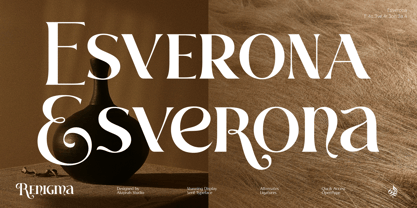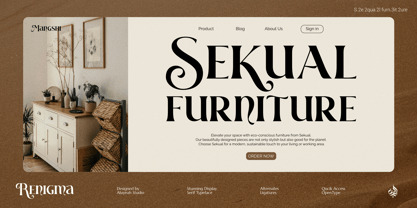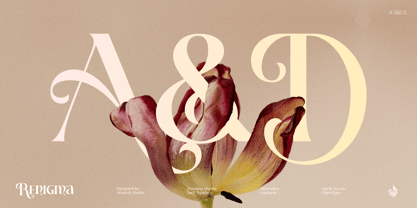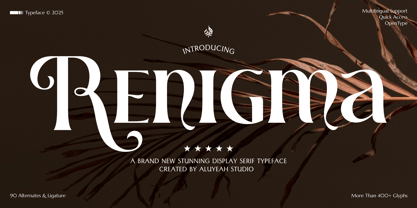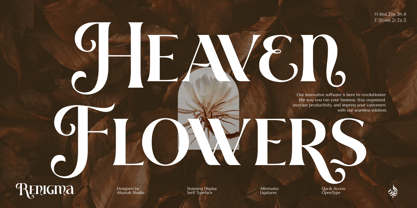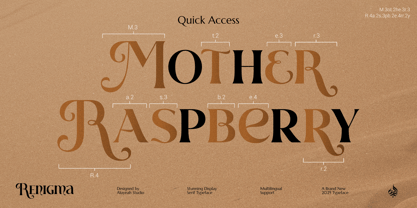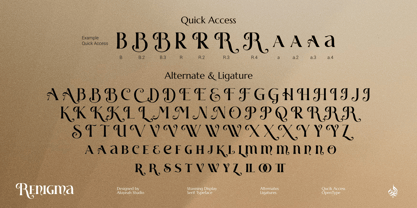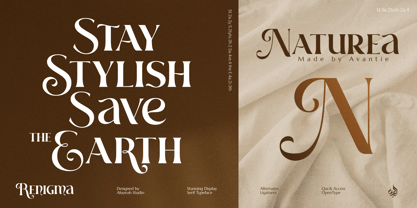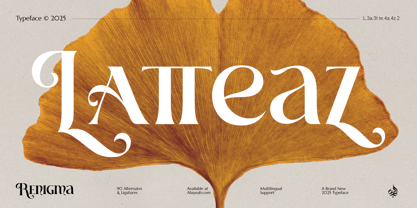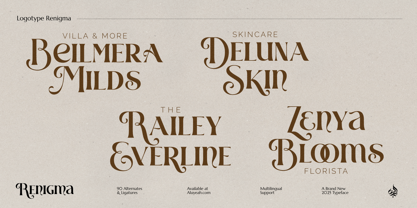
Al Renigma
by Aluyeah Studio
The Al Renigma Font Family was designed by Linggar Sundoro and published by Aluyeah Studio. Al Renigma contains 1 styles. More about this family
Hello Aluyeaholics! Introducing Renigma - A Brand New Stunning Display Serif Typeface! We love crafting fonts that are visually appealing and user-friendly. Our goal is to ensure anyone can easily use our fonts, regardless of their design background. By providing quick access features, We create fonts that are easy to work with. Making design accessible and enjoyable for everyone drives our passion, and we hope my fonts bring creativity to your projects! Elevate your designs with Renigma, a stylish and versatile font that offers more than 400+ glyphs, over 90+ alternates and ligatures, Quick Access, and Multilingual support for 67 languages. Its quick access feature makes it easy to use all of its stunning alternates and ligatures, allowing you to create beautiful designs with ease. Creating beautiful designs has never been easier. Quick Access - You can easily call alternates using quick access combination like B.2 B.3 B.4 a.2 a.3 t.t etc. To get the preview-like result, you can use the quick access combination R.3e.2n.3ig.2m.3a.4